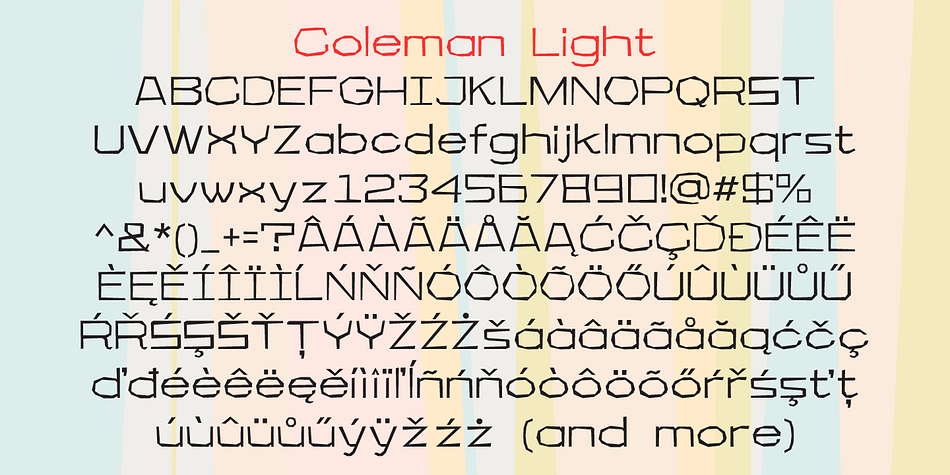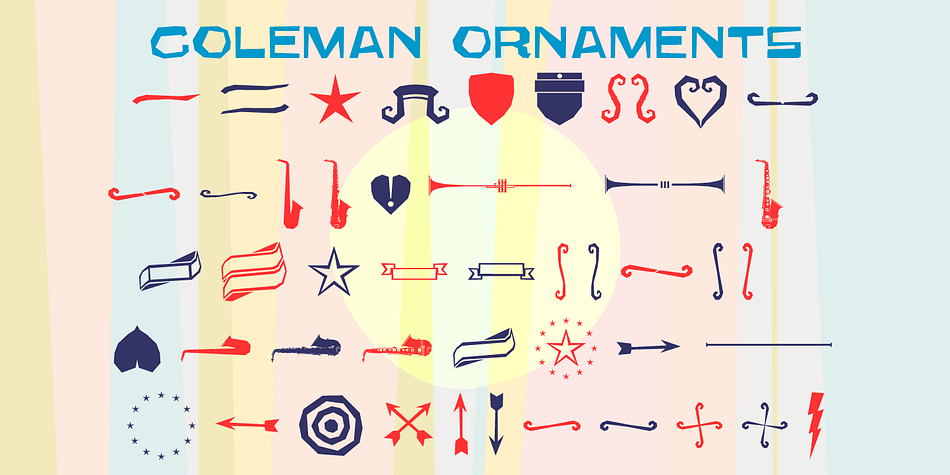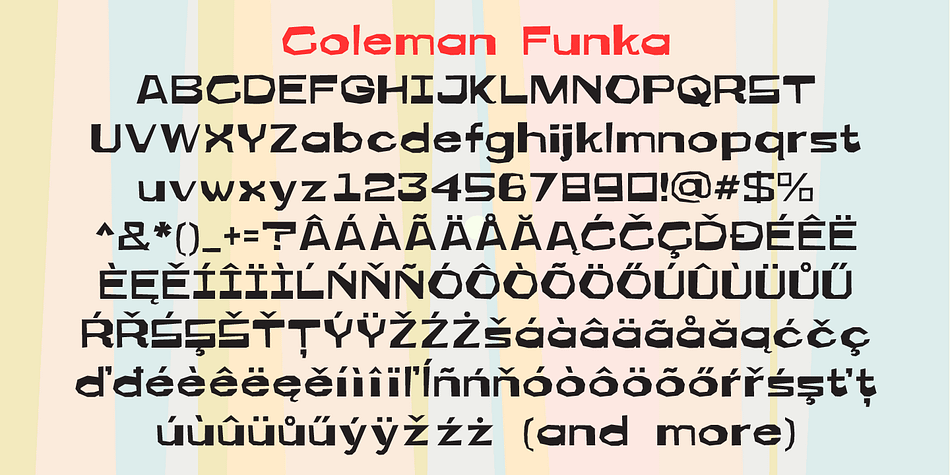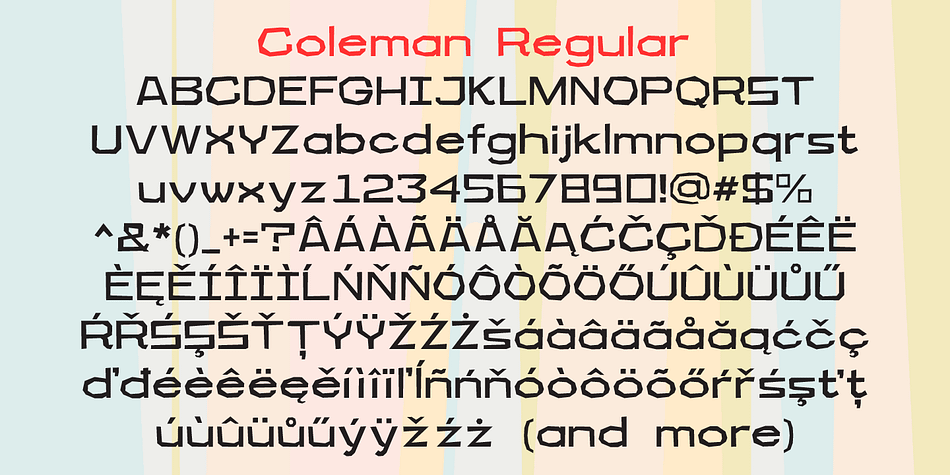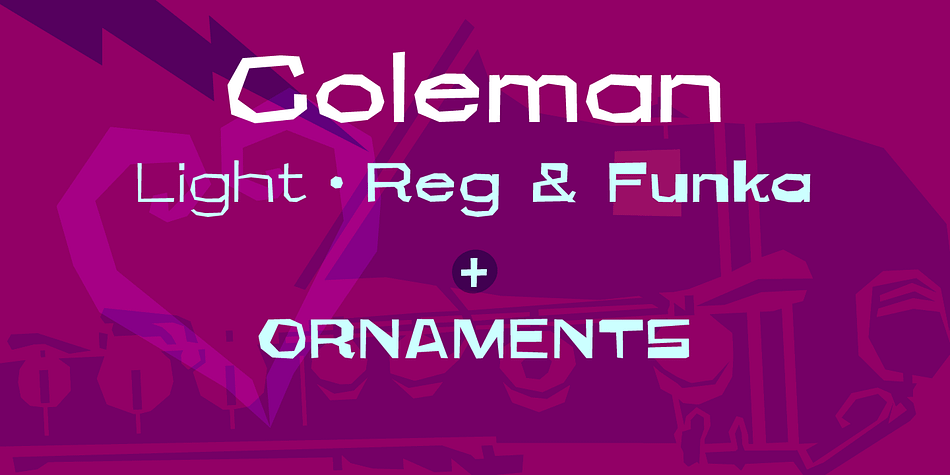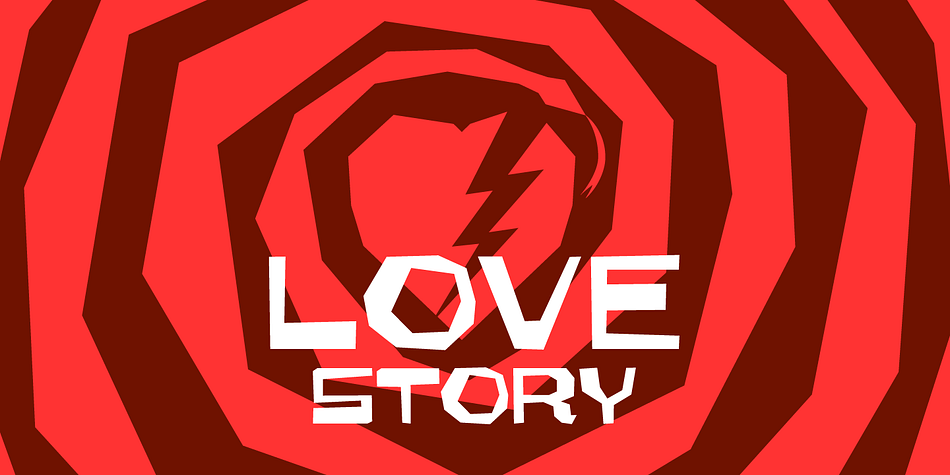
Coleman is a dingbat and hand display font family. This typeface has four styles and was published by Typekirk.
Coleman is the first of a jazz-inspired two-family double take on one design concept, tailor made for album covers, posters, t-shirts, and collateral design. Carefully weighted, off-kiltered, and hand-kerned, Coleman’s offbeat nature is perfect for catching attention. New Funka weight features spontaneous character design variations. Pairs perfectly with Coleman Duo. Bonus: Coleman Ornaments included!